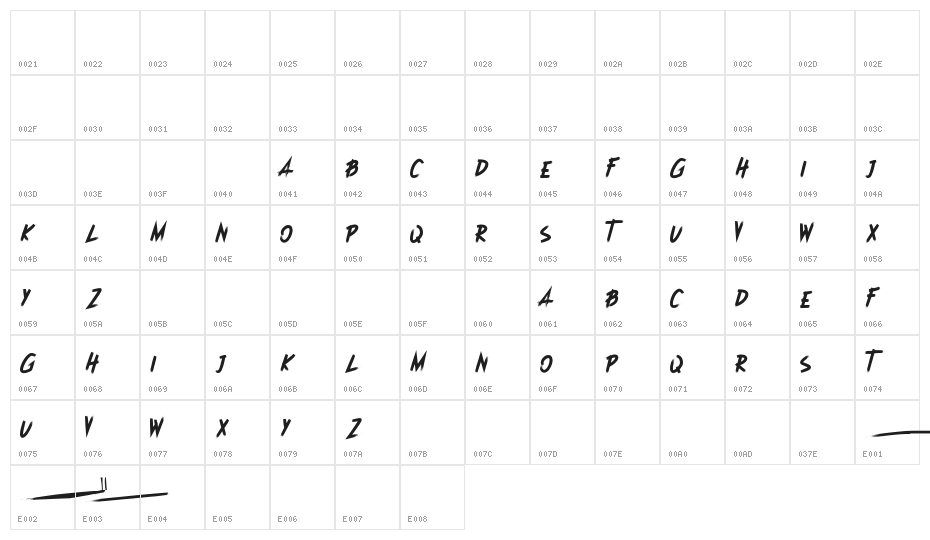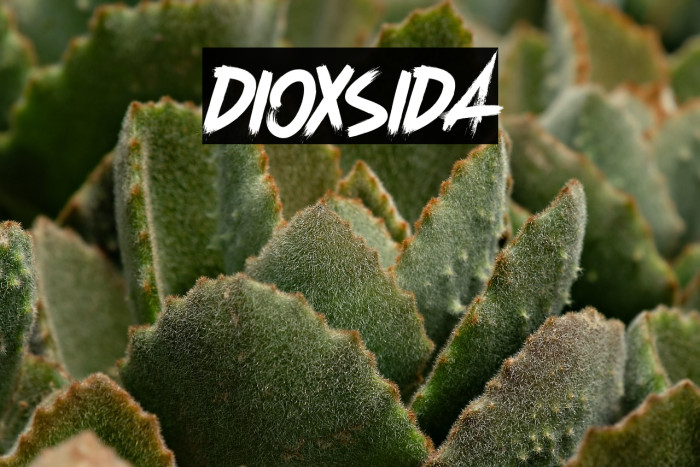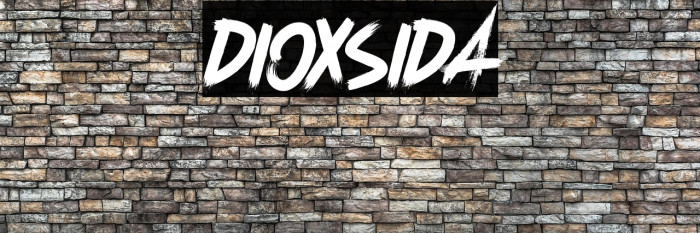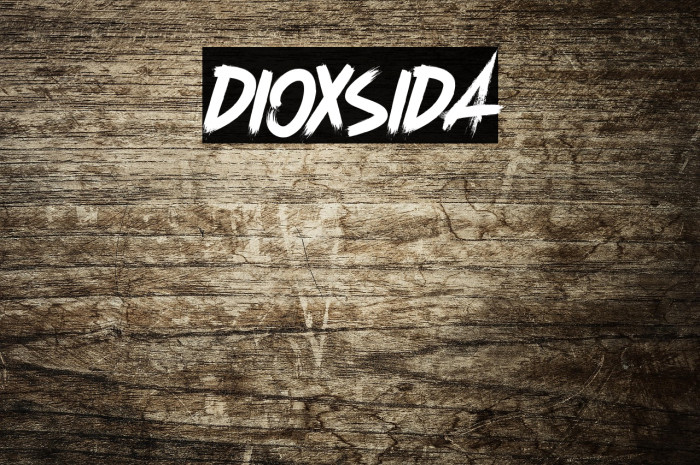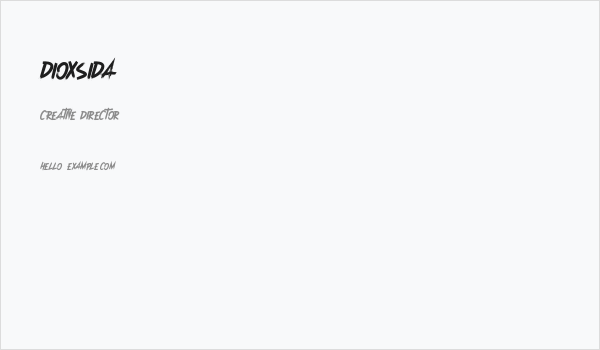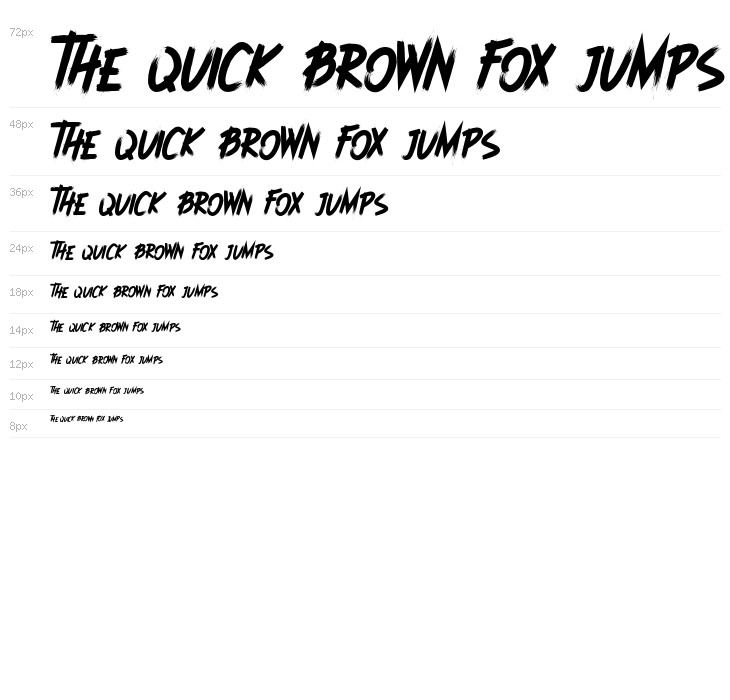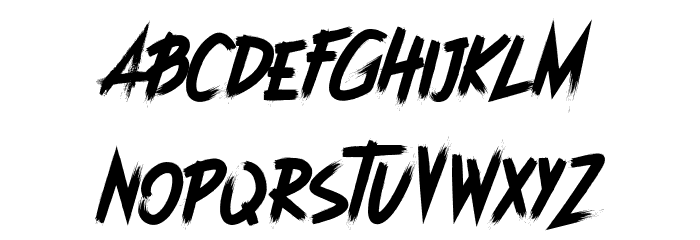
Dioxsida Font
Dioxsida Description
This font features a bold and dynamic brush script style, characterized by its energetic and expressive strokes. The letters have a hand-painted appearance, with varying thicknesses that create a sense of movement and fluidity. The edges are slightly rough, adding to the authentic brush effect. The uppercase letters are particularly striking, with a strong presence that commands attention. This font is ideal for projects that require a bold and artistic touch, such as posters, branding, and creative headlines.
| Proposed Projects | Ideal for posters, branding, creative headlines, and artistic designs. |